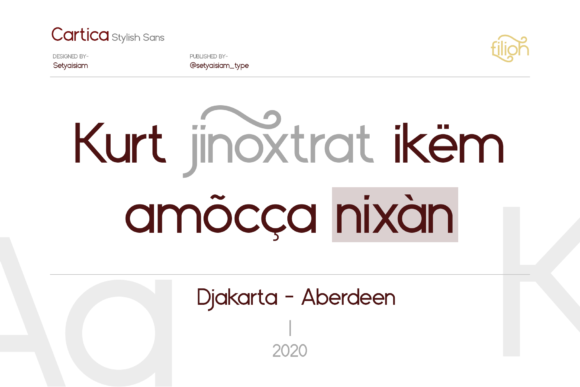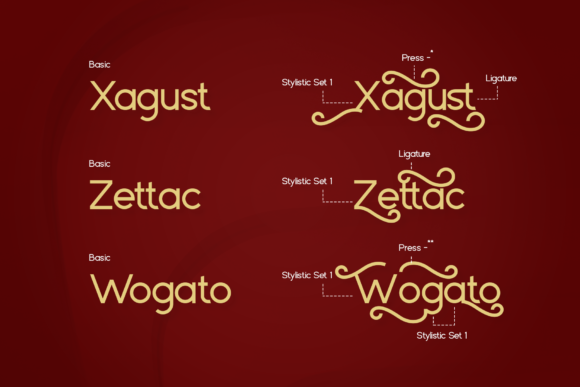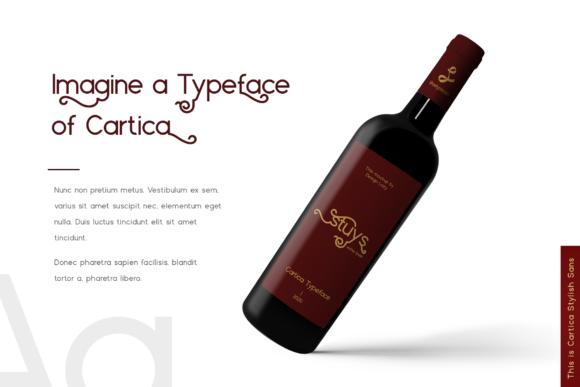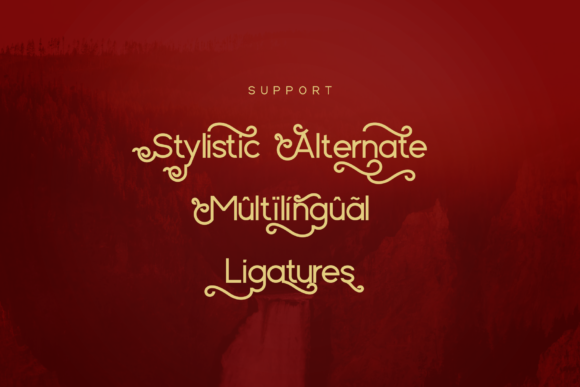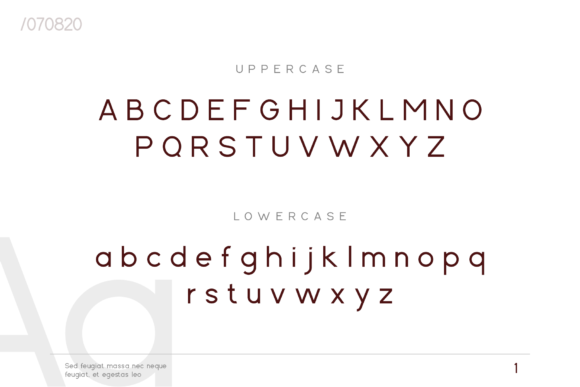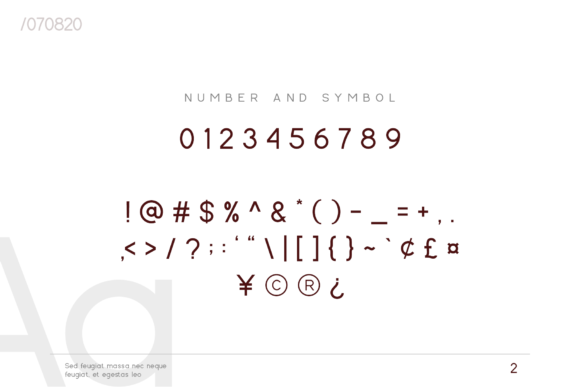
The Perfect Match for Your Creative Vision
Have you ever stared at a blank canvas, trying to bring your ideas to life, but struggling to find the right fit? That’s when the magic happens, and the perfect font comes along to elevate your project. For designers, the quest for the ideal typography is a never-ending journey, and that’s where Cartica Font comes in – a minimal and neat sans serif font that can take your creative ideas to new heights.
With its versatility and clean design, Cartica Font is the perfect addition to any project. Whether you’re working on a branding campaign, designing a website, or creating a logo, Cartica Font is sure to make your work stand out. Its value lies in its ability to complement a wide range of styles, making it an indispensable tool for designers looking to create something truly unique.
Cartica Font Key Features
- Font Size: The font family includes various weights, ranging from 100 to 900, providing flexibility for designers to choose the perfect size for their projects.
- Unique Characteristics: The font features a unique blend of modern and classic elements, with a focus on legibility and readability in both print and digital media.
- Language Support: Cartica Font includes comprehensive language support, covering multiple scripts and languages, making it an ideal choice for global branding and design projects.
- Scalability: The font is designed to be highly scalable, ensuring that it retains its quality and legibility even at small sizes or in complex compositions.
Cartica Font Review
As a designer, I was excited to dive into the world of Cartica Font. Here’s my honest take on this font.
- Cartica Font has a unique and modern aesthetic that makes it perfect for creative projects.
- The font’s script style adds a touch of elegance and sophistication.
- The bold weight is excellent for headings and titles, while the light weight is great for body text.
- The font is highly legible, even at small sizes.
- The font’s consistency can be inconsistent at times, with some letters looking more stylized than others.
- The font may not be the best choice for body text, as it can be a bit too ornate.
- The font’s range of weights is limited, which can make it difficult to create a cohesive look.
Overall, I think Cartica Font is a great addition to any designer’s toolkit. While it has some limitations, its unique style and high legibility make it perfect for creative projects. I would recommend it for headings, titles, and other display text, but may not be the best choice for body text.
Cartica Font Practical Application Guide
Tips: Use Cartica Font for headings and titles to add a touch of elegance to your design. Experiment with different font sizes and colors to create visual hierarchy.
Tips: Use Cartica Font for typography-heavy designs, such as posters or brochures. Experiment with layer blending modes and effects to add depth to your design.
Tips: Use Cartica Font for presentations or documents that require a professional and clean look. Experiment with font sizes and colors to create visual hierarchy.
Cartica Font is ideal for:
- Corporate branding and marketing materials
- Typographic-heavy designs, such as posters and brochures
- Presentations and documents that require a professional and clean look
Alternatives to Cartica Font
Playfair Display is a luxurious and elegant serif font perfect for creating high-end designs, such as fashion magazines and luxury brands. It features intricate details and swashes, making it ideal for headings and titles. Compared to Cartica Font, Playfair Display has a more ornate and refined feel, while Cartica Font has a more modern and minimalist approach.
Great Vibes is a modern and stylish script font ideal for creating a sense of elegance and sophistication. It’s perfect for designs that require a touch of luxury, such as wedding invitations and high-end packaging. Compared to Cartica Font, Great Vibes has a more fluid and dynamic feel, while Cartica Font has a more geometric and modern approach.